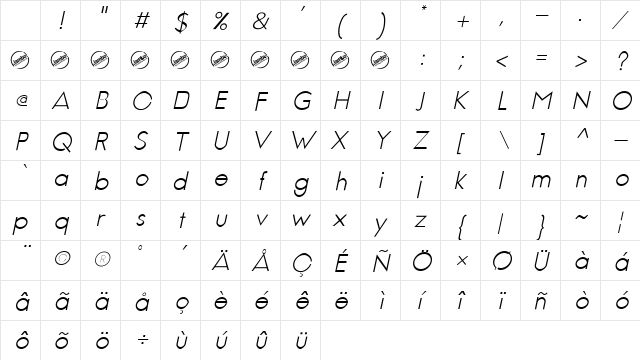
Jambetica is a composed and adaptable typeface that performs quietly and consistently across a wide range of design contexts. The slanted form adds forward momentum and visual energy. Its slender proportions lend an understated elegance to any composition.